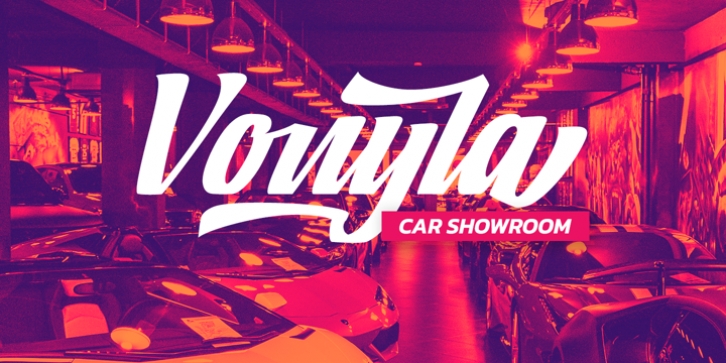
Decking is a racing-themed script font to give you artistic, firm impressions due to the balance between solid designs and unique strokes on the edges of each character. The font's thickness is able to show you the power to any title or header you make. In addition, Decking is still suitable to apply to smaller-sized texts owing to its good legibility.
Stylistic Sets Ligatures Swashes Multilingual Supports PUA Encoded Numerals and PunctuationsDecking fits best for various designs, such as posters, banners, logos, book covers, headings, printed products, merchandise, social media, and more. Find out more ways to use this font by taking a look at the font preview. Enjoy your experience with this font and feel free to contact us for further product information or trouble complaints. Thank you and wish you good luck with your designs.